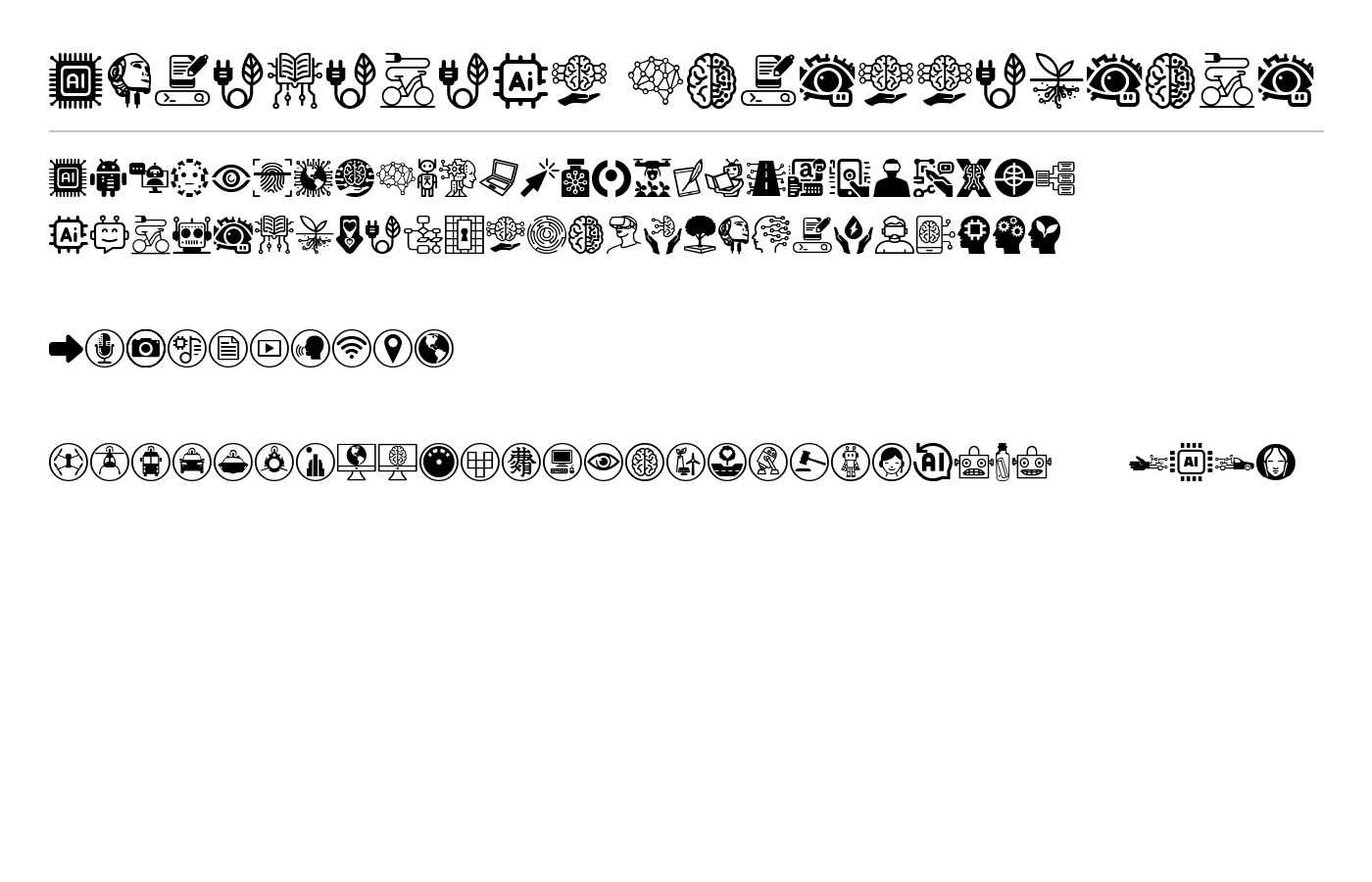
Artificial Intelligence Font is a unique symbol-based typeface composed entirely of icons related to AI, technology, and digital concepts. Its bold, clean lines and crisp shapes make it perfect for futuristic projects, tech branding, and innovative interfaces where visual storytelling through icons is key. This font brings a modern, tech-savvy vibe to designs requiring quick visual communication about artificial intelligence and advanced technology themes.
Artificial Intelligence Font
About Artificial Intelligence Font